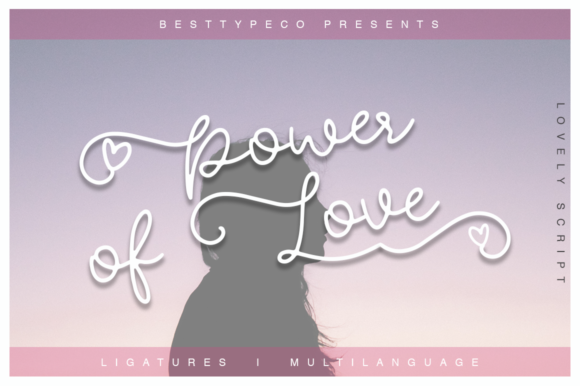
Power of Love Font
Step into the enchanted realm of Power of Love Font, a captivating script that whispers tales of affection and longing. This exquisite typeface, crafted by the renowned BennyDesigns, embodies the essence of romance, enchanting your designs with a touch of undeniable charm.
With its graceful curves and playful flourishes, Power of Love Font dances across your screen, inviting you to express your emotions with flair and elegance. Its delicate lines evoke the beauty of handwritten love letters, adding a heartfelt touch to any project.
Whether you're crafting wedding invitations that exude romance, creating social media graphics that radiate love, or designing heartfelt greeting cards, Power of Love Font is the perfect choice. Its versatility allows you to weave your own love story into every design, capturing the essence of your affection with each stroke.
Indulge in the enchanting allure of Power of Love Font and let your designs blossom with the magic of romance. Its enchanting presence will elevate your creations, captivating hearts and igniting the flames of love with every use.